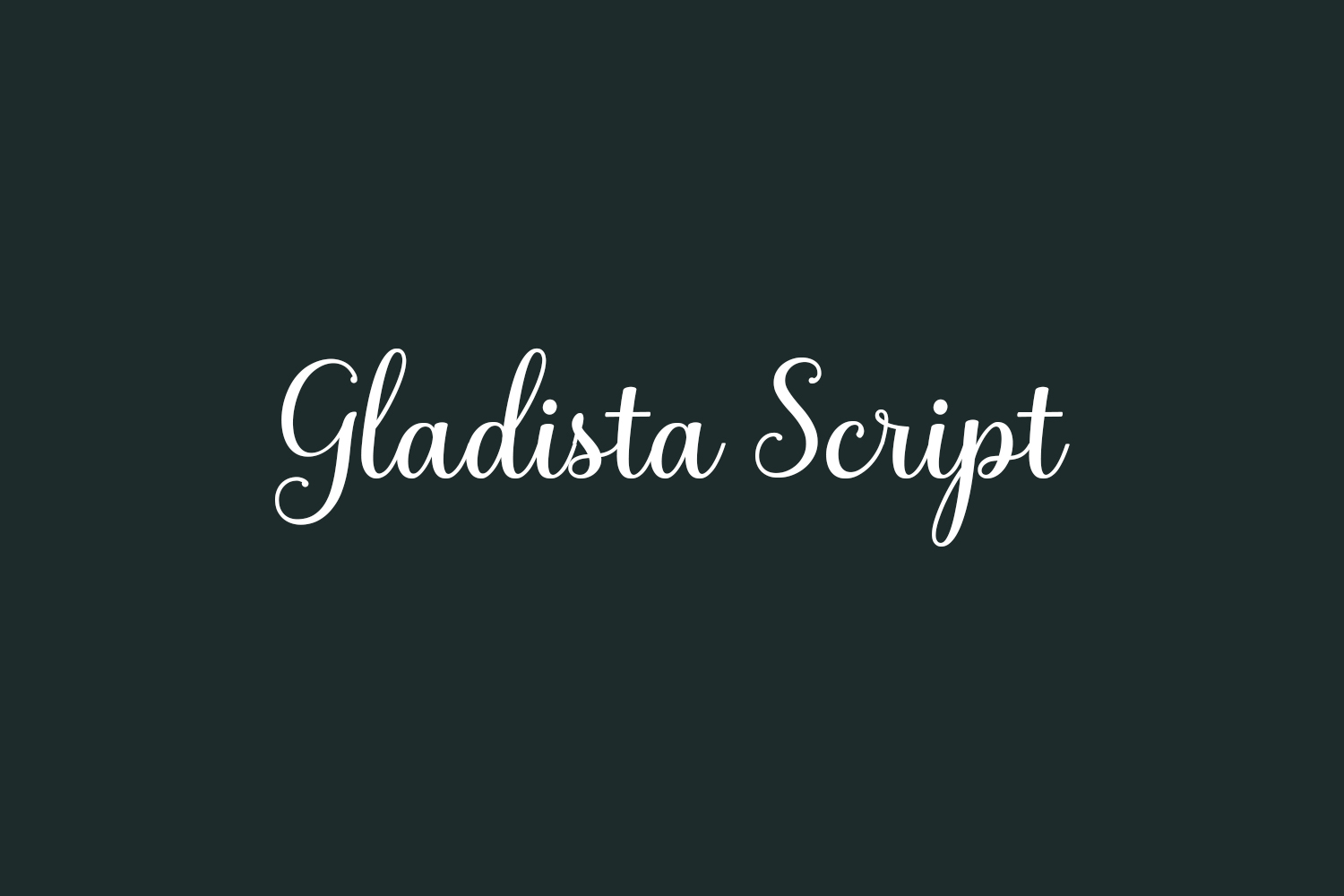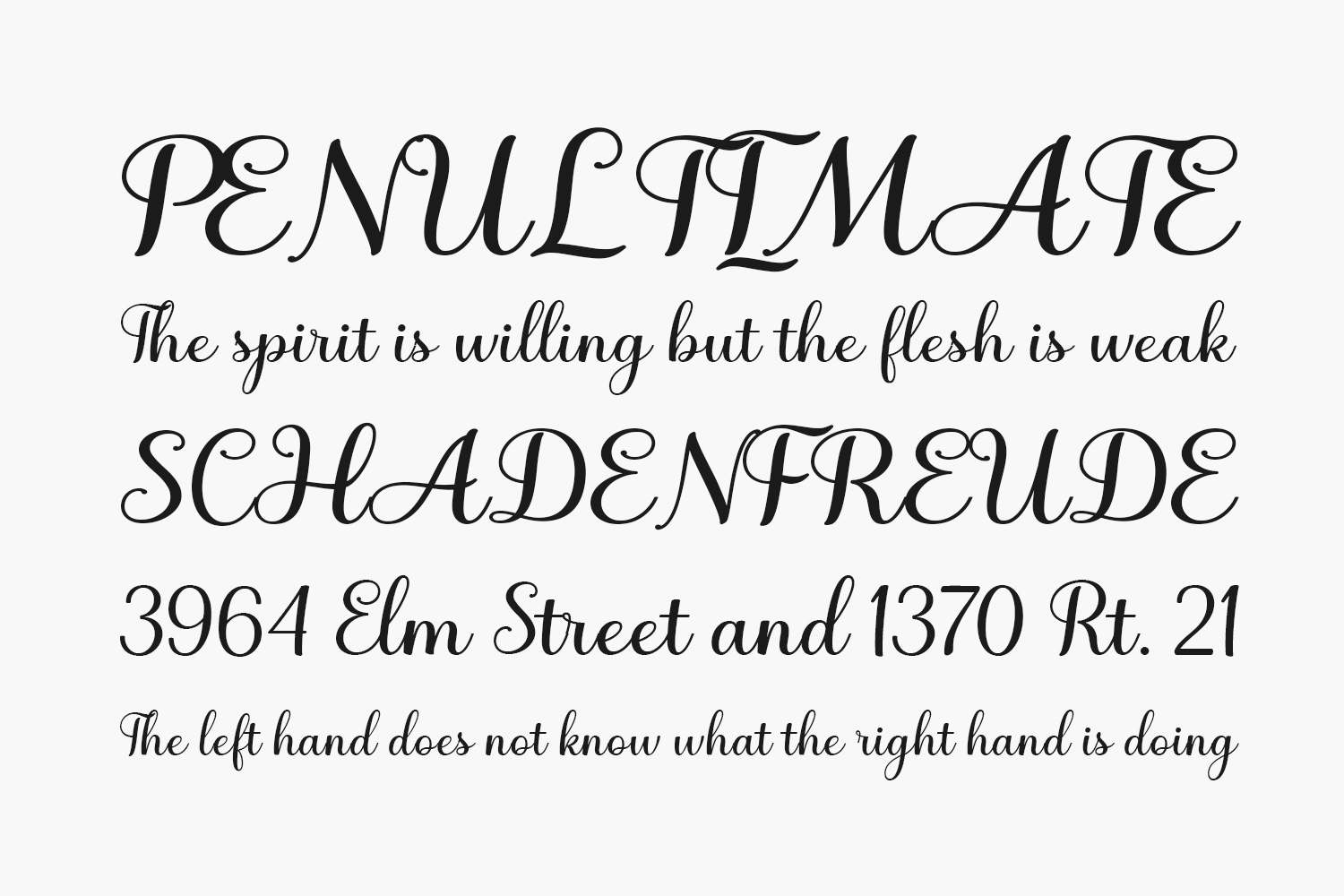
Gladista Script Free Font is a flowing handwritten font, described by an elegant touch, perfect for your favorite projects. Fall in love with its incredibly distinct and timeless style and use it to create spectacular designs. Gladista Script Free Font was designed by Attract Studio and is free for personal use only. Please purchase the full version for commercial use.